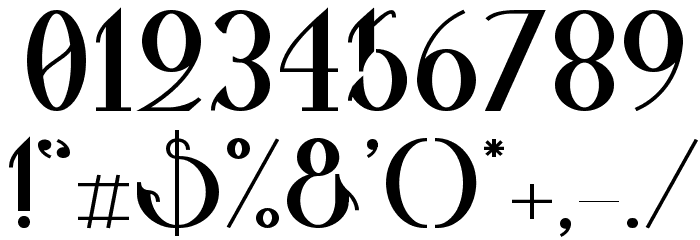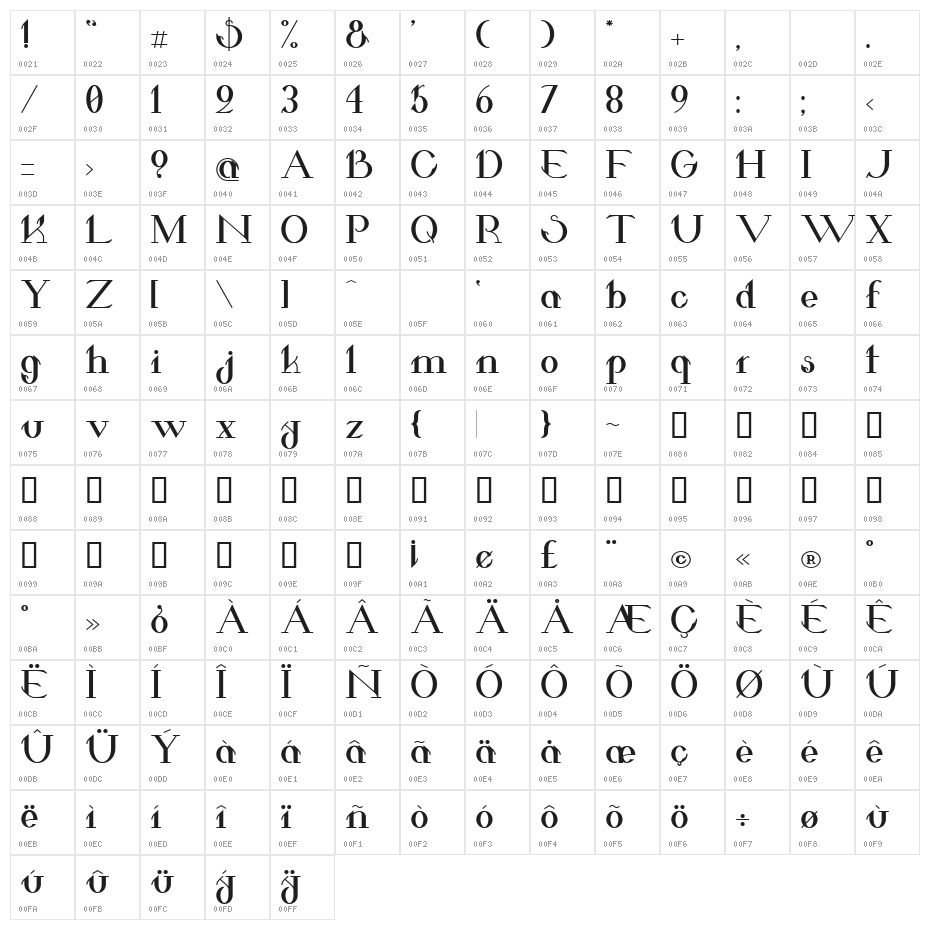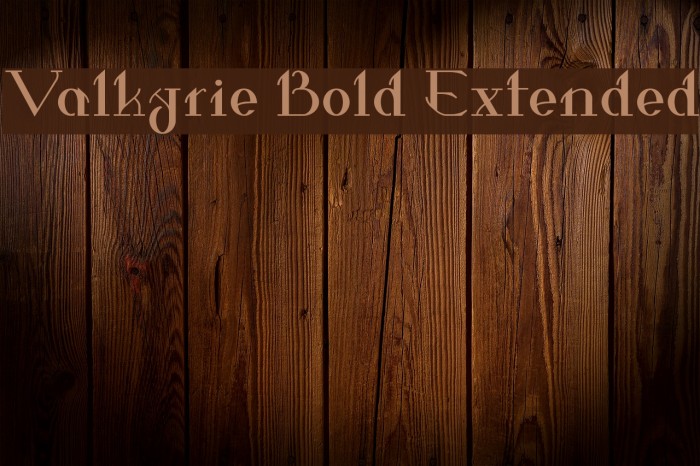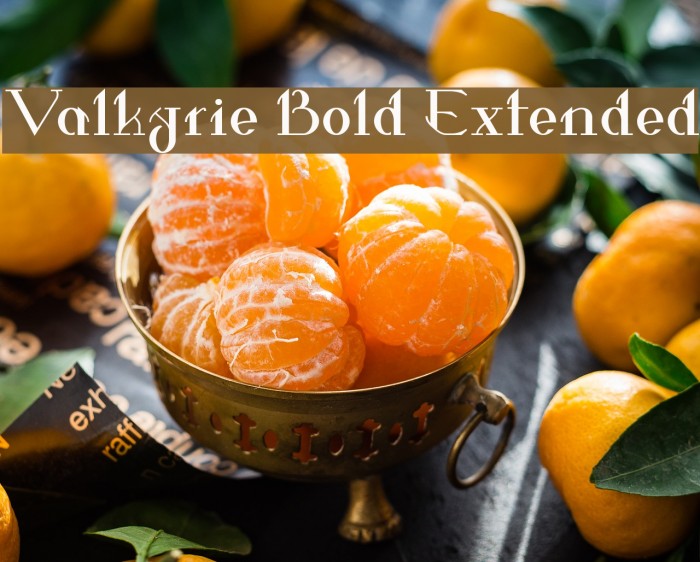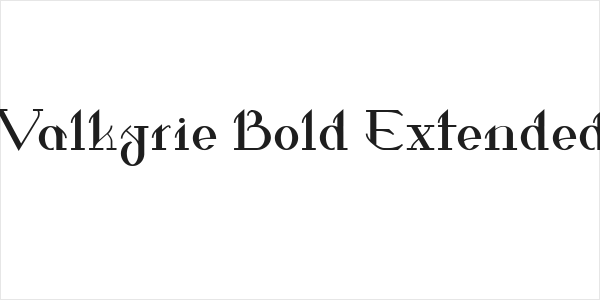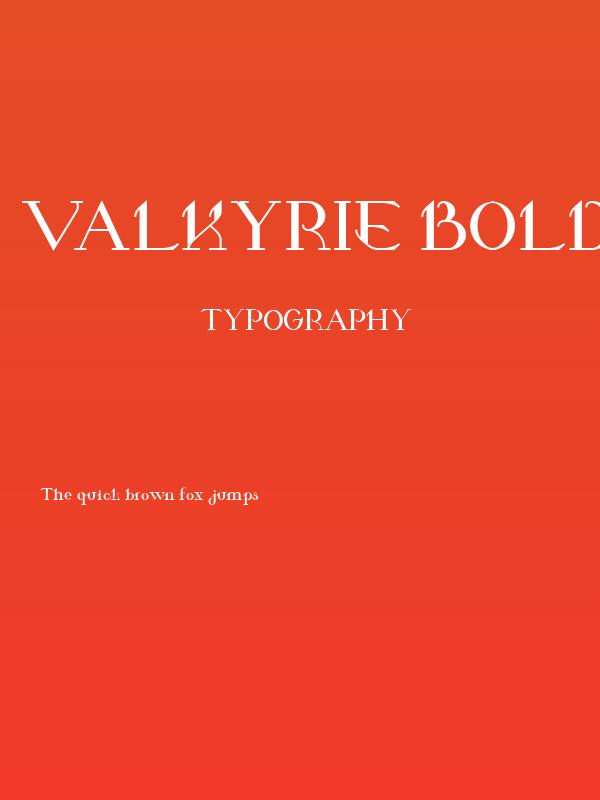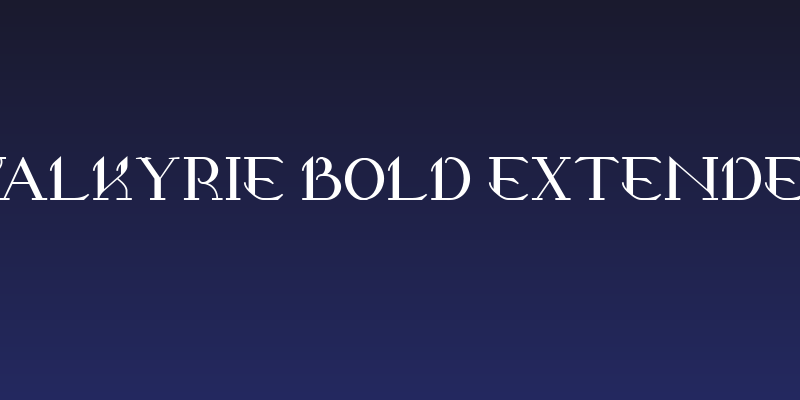
Valkyrie Bold Extended Font
Valkyrie Bold Extended Description
This font exhibits a bold and extended style, characterized by its strong, impactful presence. The uppercase letters feature a unique blend of sharp angles and smooth curves, creating a dynamic and modern aesthetic. The lowercase letters maintain a consistent style, with distinctive flourishes that add a touch of elegance. The numerals are bold and clear, ensuring readability while maintaining the font's overall style. Special characters are designed with the same attention to detail, making them stand out. This font is perfect for making a statement with its bold and extended design.